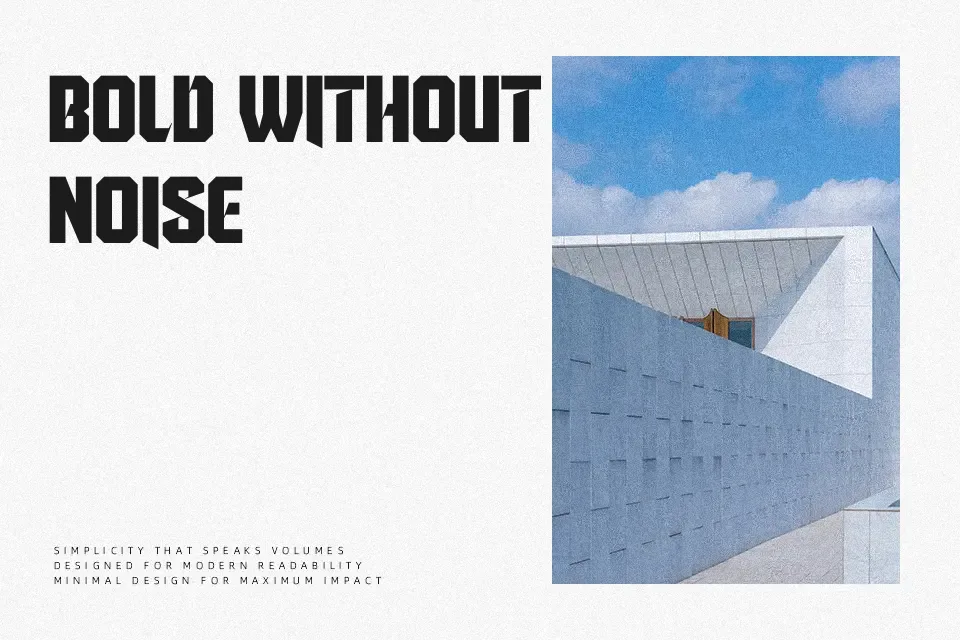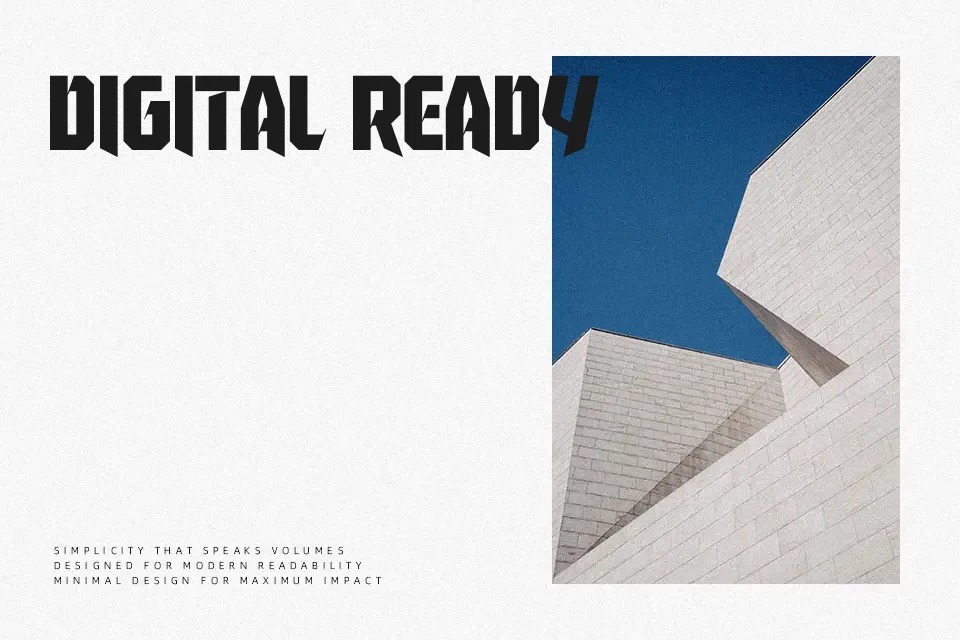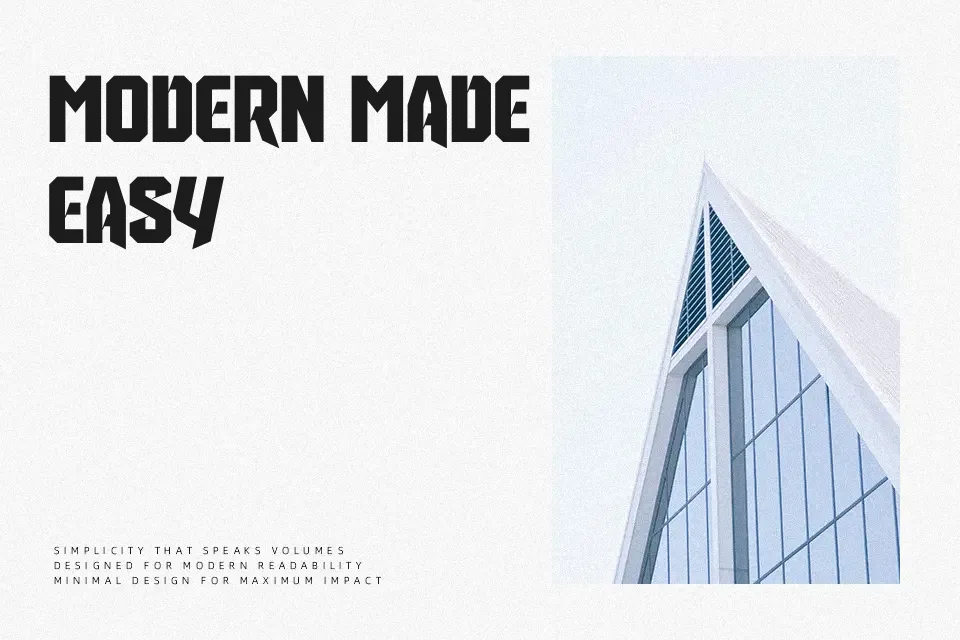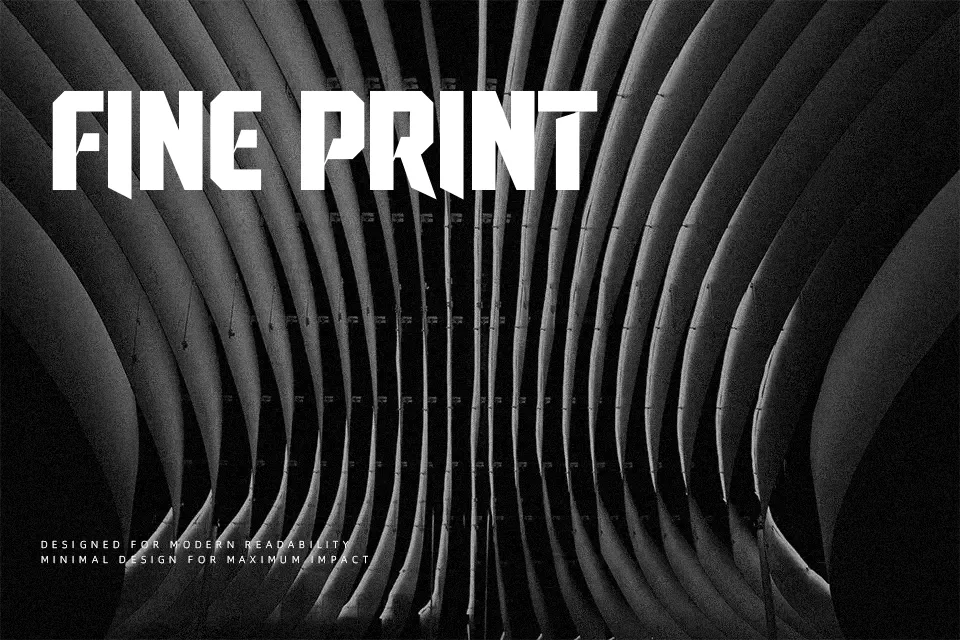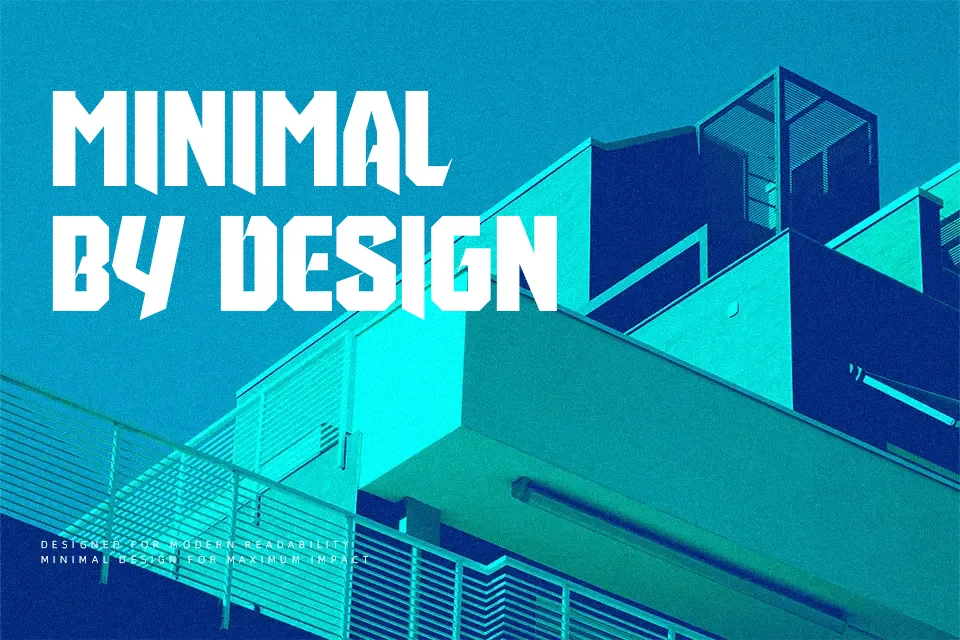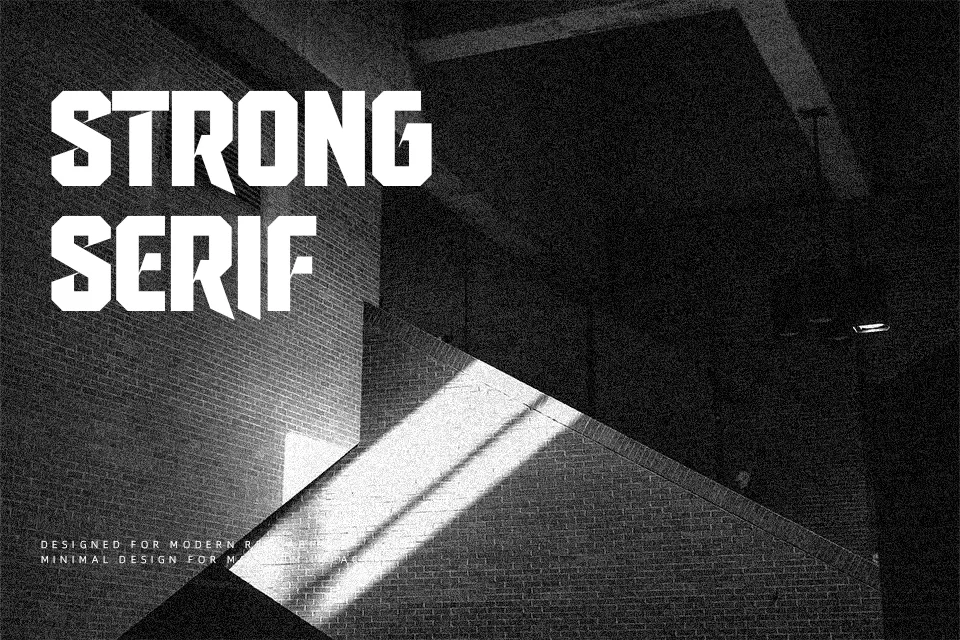
Tillburg Font
Tillburg Font commands attention through its heavy, condensed geometric architecture and assertive sans-serif construction. The typeface showcases uniform vertical strokes, compact horizontal proportions, and tightly controlled character spacing that together produce a powerful, rhythmic cadence across short phrases. Because each letterform maintains sturdy contours and robust structural balance, headline readability remains remarkably strong even when viewed from across a gymnasium or printed on rough jersey fabric. However, the sheer density of the heavy stems significantly diminishes reading comfort in multi-line paragraphs, making extended text tiring to decipher. The font performs best when deployed for bold team logos, dynamic game day announcements, and high-impact stadium signage.
Best For: sports jersey numbering, athletic event posters, collegiate merchandise, varsity apparel
Not Ideal For: long paragraph text, mobile user interface copy, dense editorial layouts, legal documents
Perfect for branding, headline, and logo, with a bold and condensed style.